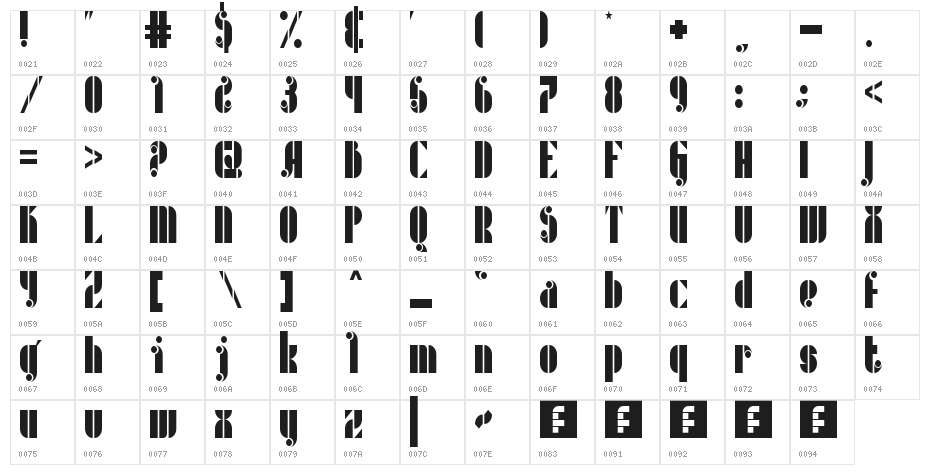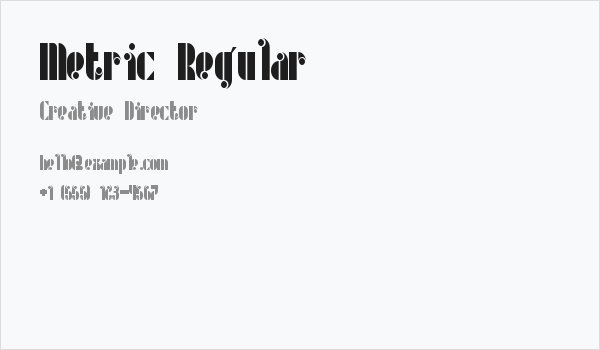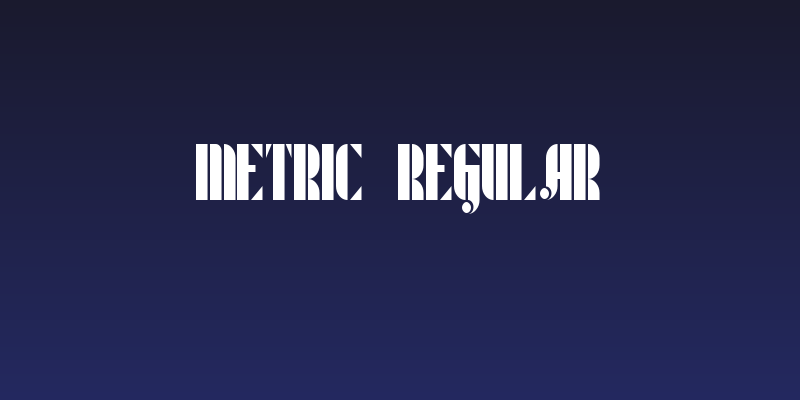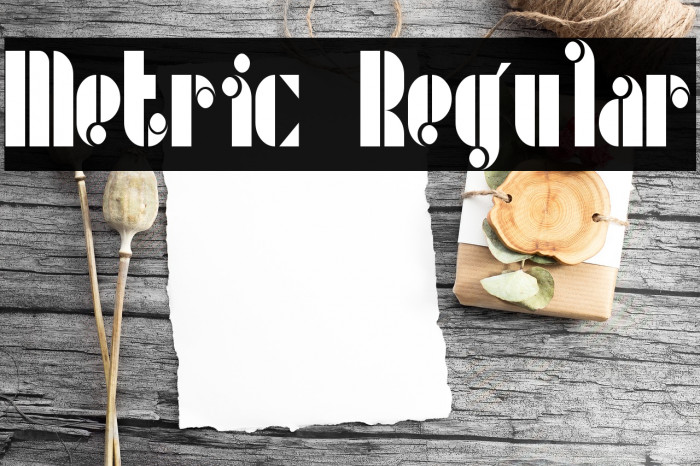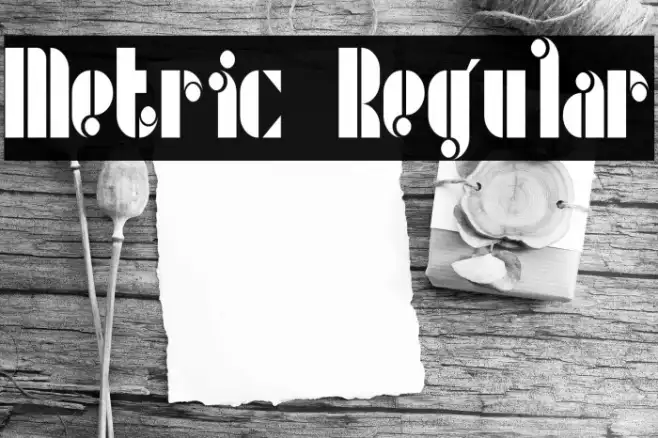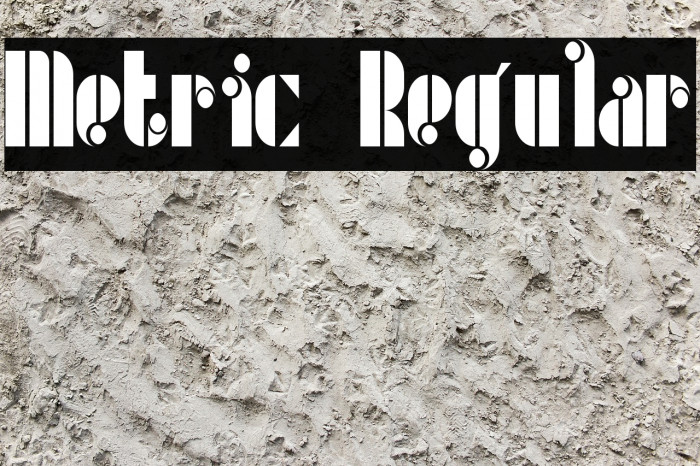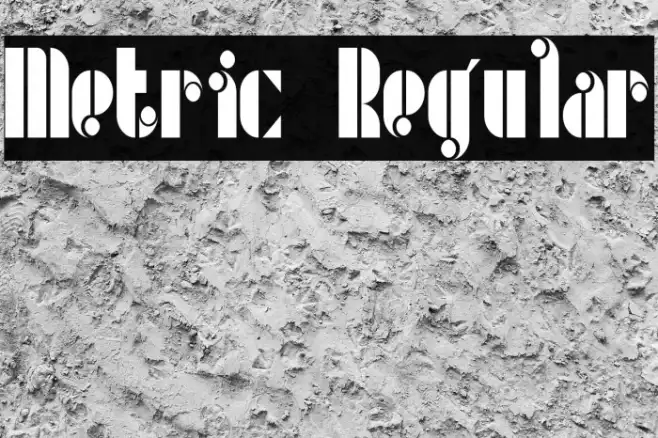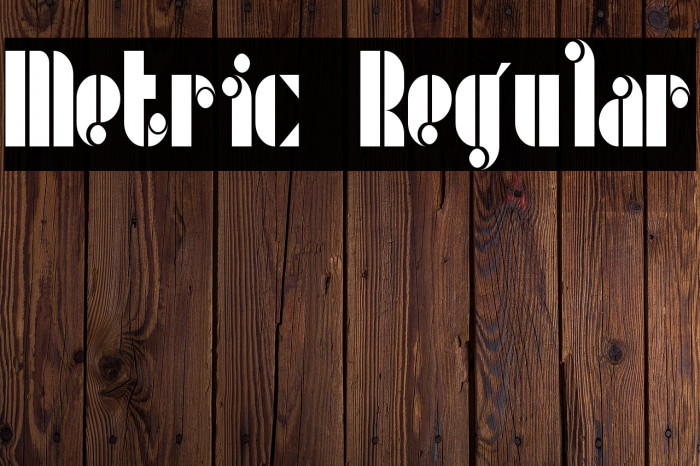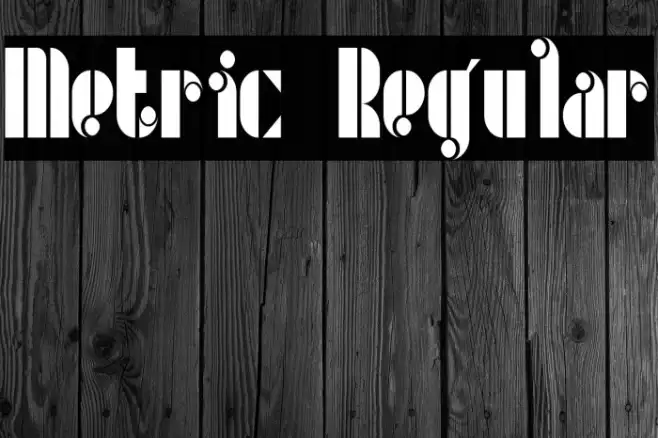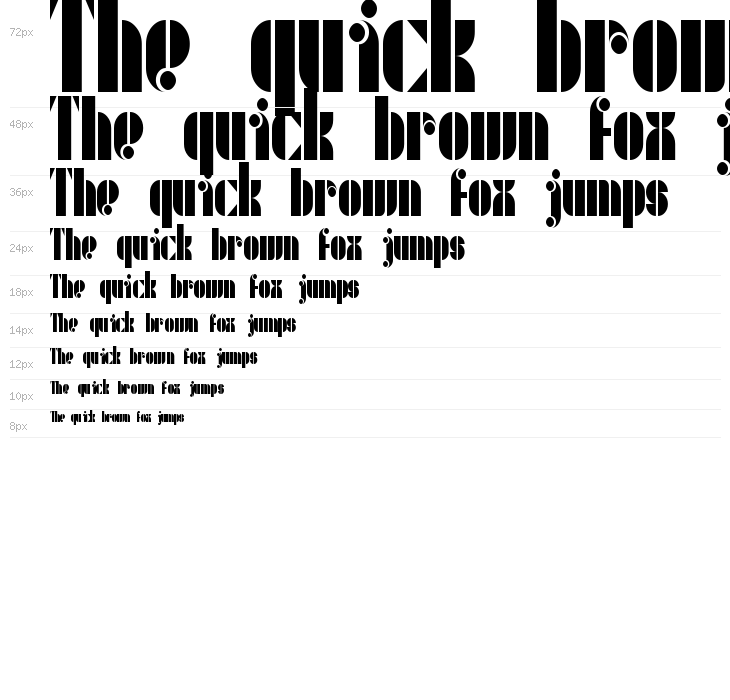
Metric Regular Font
Metric Regular Description
This font features a bold and striking design with a high contrast between thick and thin strokes. The characters are uniquely stylized with geometric shapes and sharp angles, creating a modern and artistic appearance. The uppercase and lowercase letters maintain a consistent style, with circular elements adding a decorative touch. The numerals and special characters follow the same bold and geometric theme, ensuring uniformity across all glyphs. This font stands out with its dramatic and eye-catching look, making it suitable for projects that require a strong visual impact.